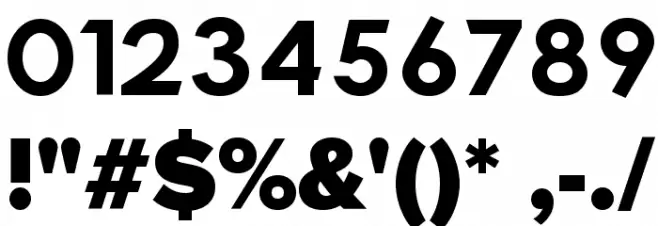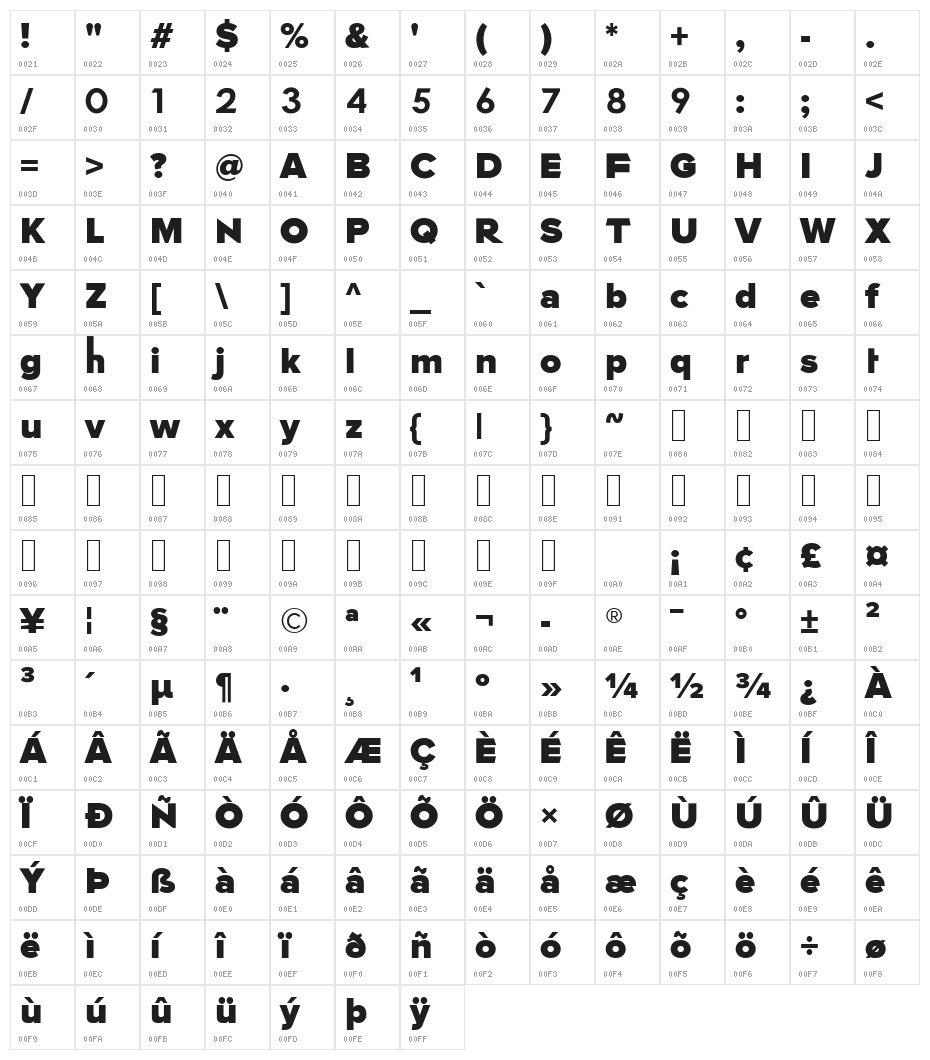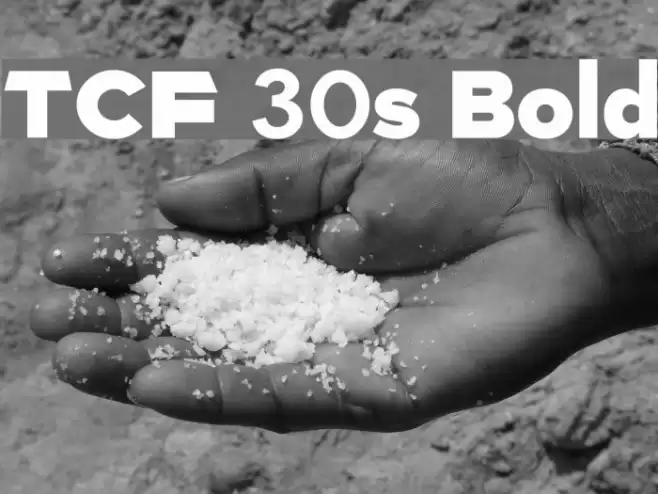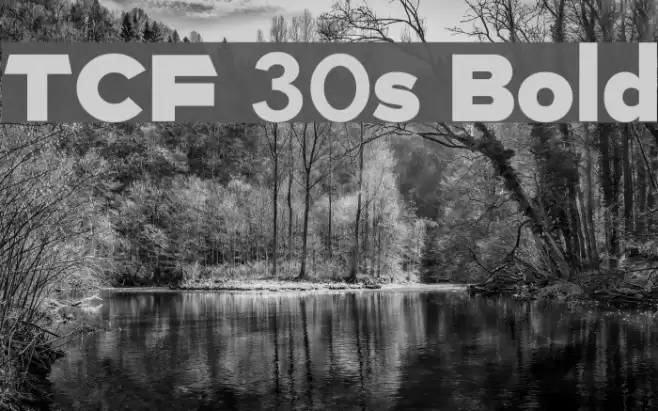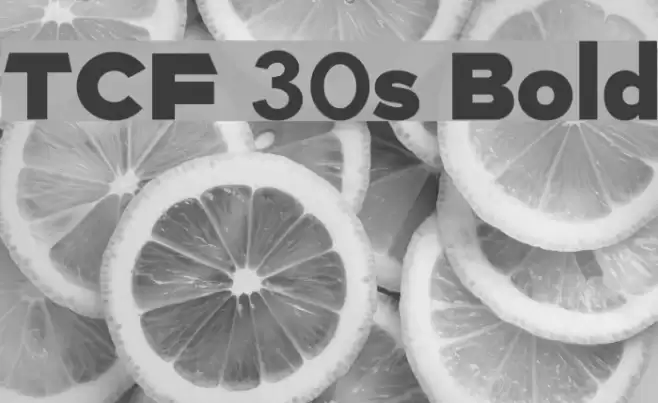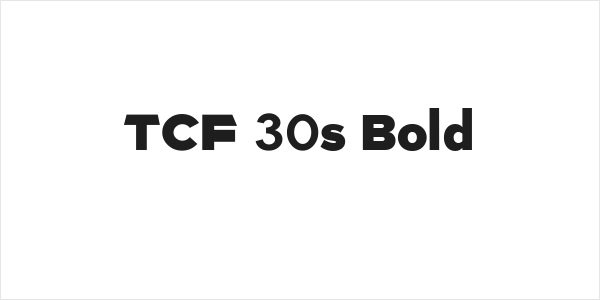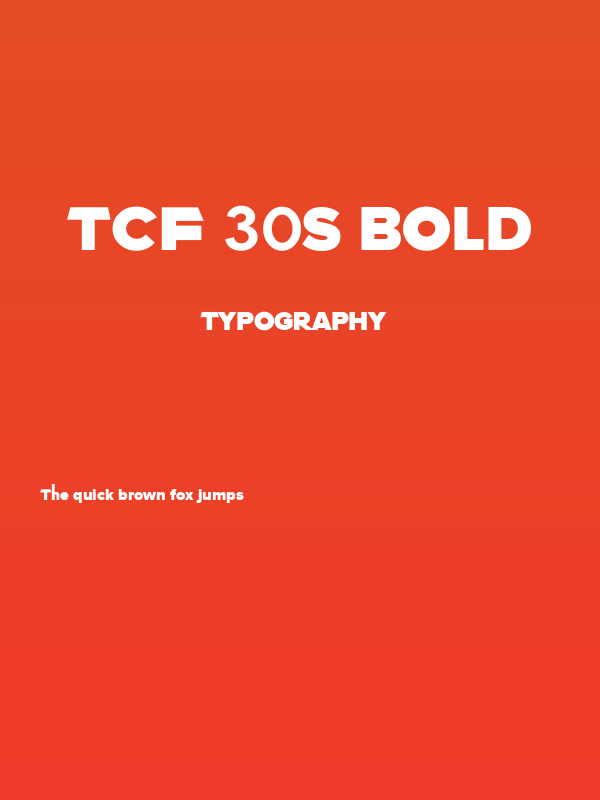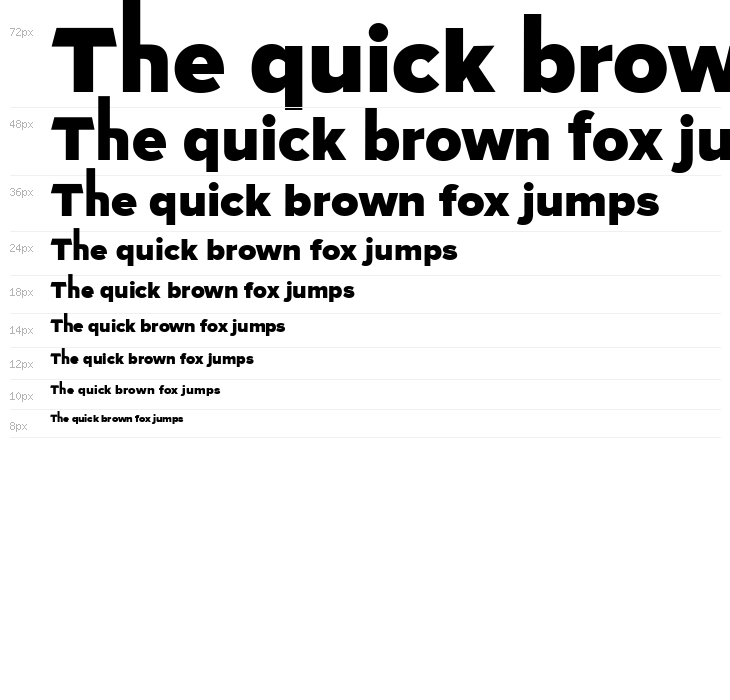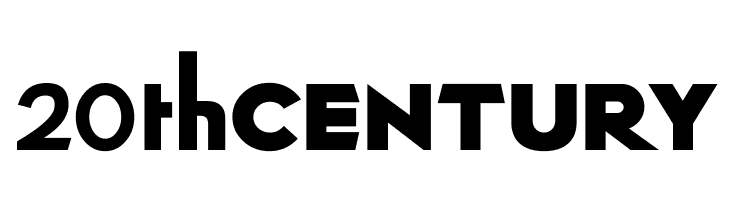
TCF 30s Bold Font
TCF 30s Bold Description
This bold, sans-serif typeface features strong geometric shapes and a clean, modern aesthetic. The uppercase letters are uniform in height, with wide, consistent strokes that convey a sense of stability and confidence. The lowercase letters maintain the same boldness, offering a harmonious balance with the uppercase set. Numbers are equally robust, ensuring clarity and legibility. Special characters are designed to match the overall boldness, making them stand out effectively. This font is ideal for making a strong visual impact, with its bold weight and modern style.